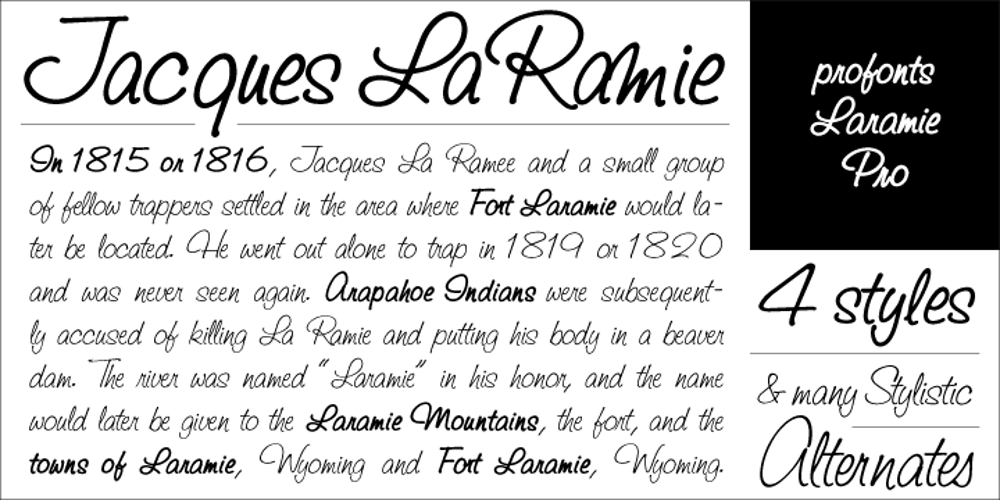
Laramie Font Family was designed by Profonts Studio and published by profonts. Laramie contains 4 styles and family package options. Laramie Pro is a new profonts script typeface family supplied in the OpenType Pro font format. The character set covers about 1,500 glyphs for the complete Latin character set (West, East, Baltic, Turkish, Romanian), and a huge number of handmade ligatures and stylistic alternates to make it a perfect OpenType Pro script. Laramie is a very distinguished, modern and versatile script font.